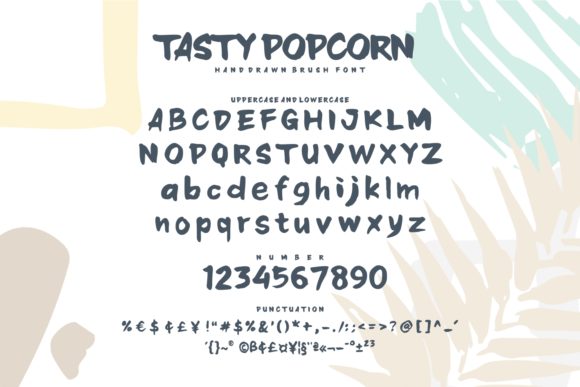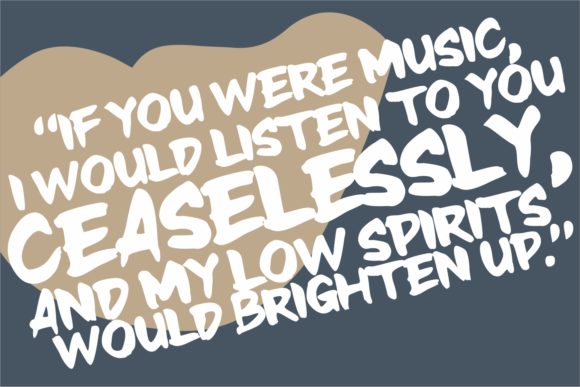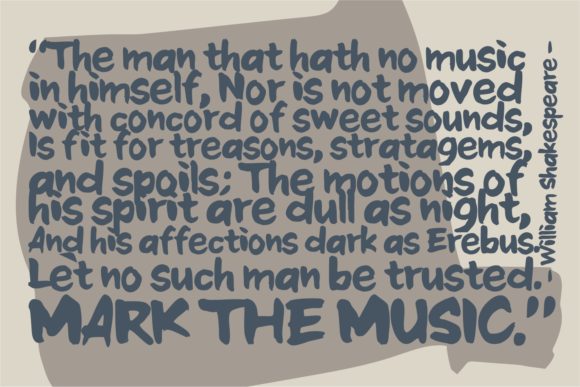
Tasty Popcorn Font
About Tasty Popcorn Font
Tasty Popcorn is a casual, fun handwritten font, created by using a brush pen. Clean and a little bit quirky, this font is the perfect fit for all of your logos, branding, social media, and crafty DIY projects.